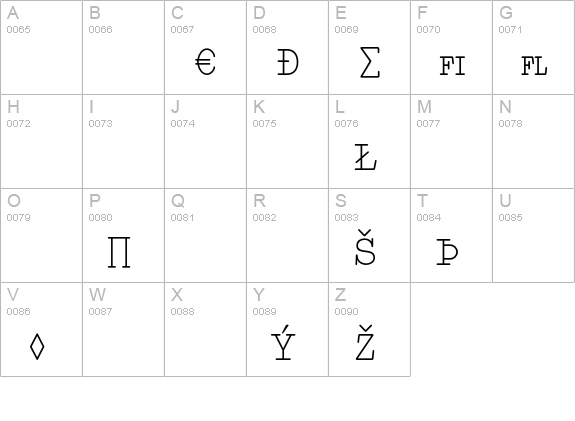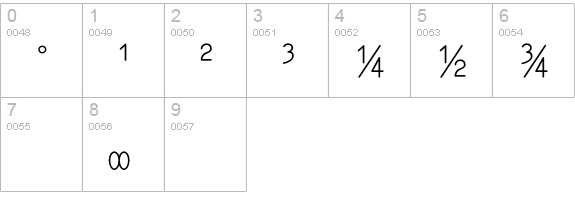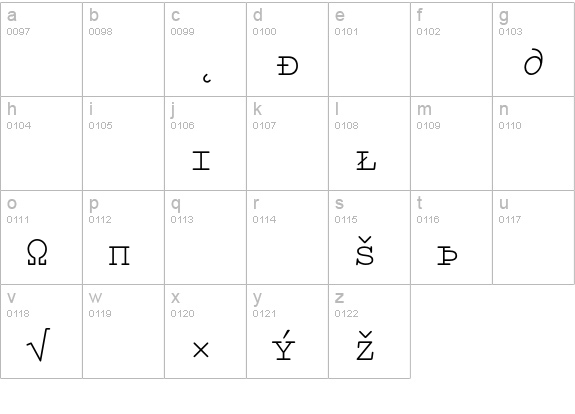
Elementa SC-Expert Regular Font Details
Elementa SC-Expert Regular is the standard, neutral variant in the Elementa typeface family \xE2\x80\x94 well suited to general body text, paragraphs, and standard typographic work.
Elementa SC-Expert Regular font is a versatile and modern typeface designed for professional use. With its clean lines and balanced proportions, this font is ideal for corporate branding, editorial design, and digital media projects. Its elegant and sophisticated appearance makes it perfect for conveying a sense of professionalism and sophistication. What sets Elementa SC-Expert Regular font apart is its exceptional legibility, making it suitable for a wide range of applications, from printed materials to digital screens. Whether used for headlines, body text, or captions, this font maintains clarity and readability across various sizes and formats. An added benefit is that Elementa SC-Expert Regular font is available for free download at FontsMarket.com. This means that you can easily access and use this high-quality font in your projects without any cost. Don't miss the opportunity to elevate your designs with the timeless appeal of Elementa SC-Expert Regular font.